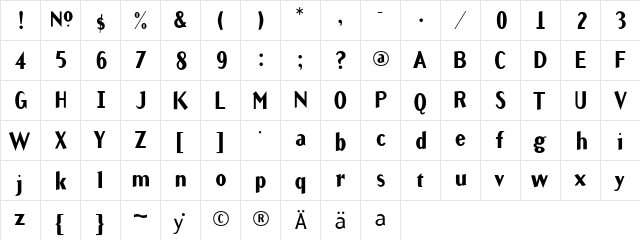
IndustrySans Bold
Design Context for IndustrySans Typeface
IndustrySans is a composed and adaptable typeface that performs quietly and consistently across a wide range of design contexts. The heavy weight commands attention and anchors typographic hierarchies.
Pro Tip: Pair IndustrySans with a font of contrasting weight or personality to build a more expressive typographic hierarchy.